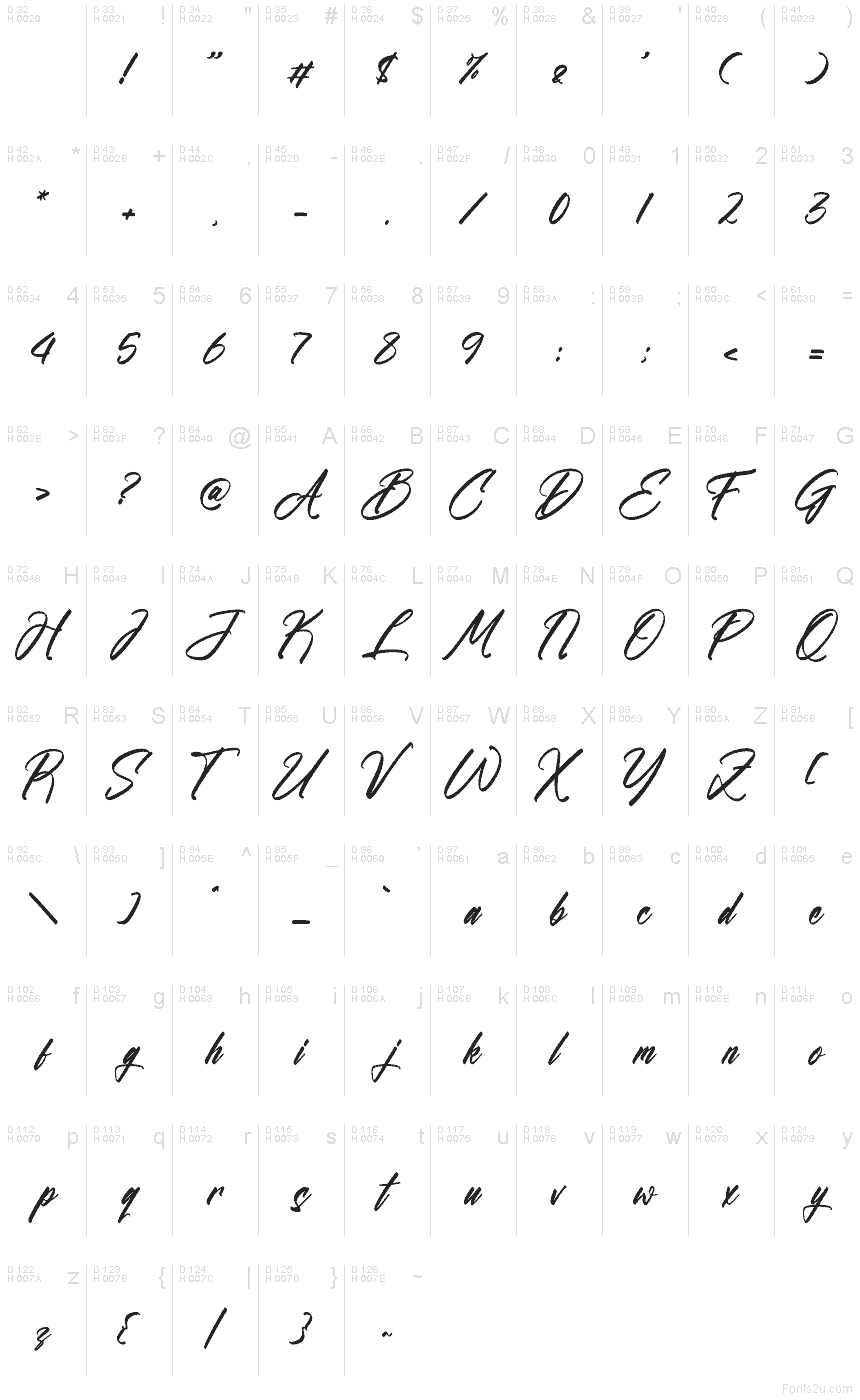
Airthaves Gonlucyd
Airthaves Gonlucyd font by Letterena Studios is an elegant condensed calligraphy and signature typeface with a sophisticated and fluid style. The connected letters have a beautiful flow, giving off a luxurious and classic feel in large size writing. This gives the font an experienced, elaborate, smooth character that suits occasions where such accents are necessary.
The presented typeface is put to its best use in product packaging, social media posts, advertising material, wedding invitations, stationery design ideas along with labels and other branding visuals. It can also suit signatures used in letterheads or mailing lists just as much.